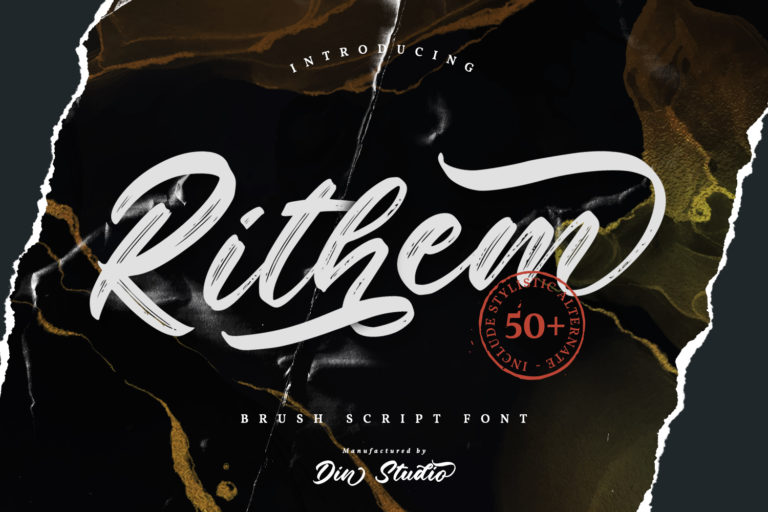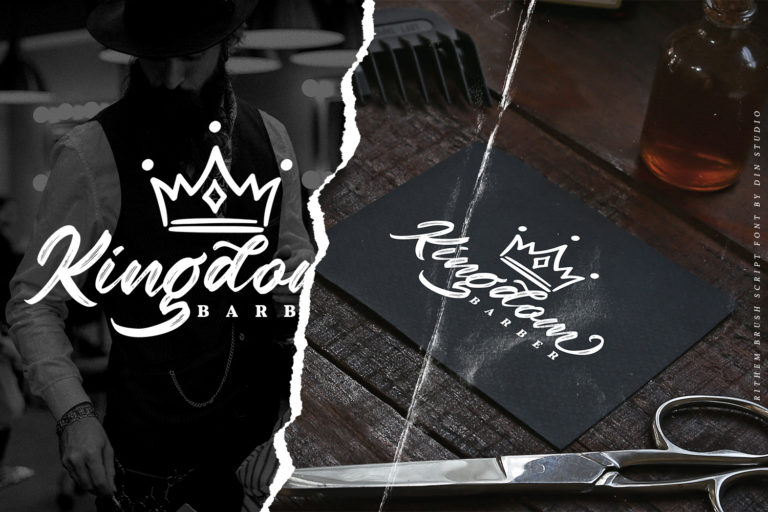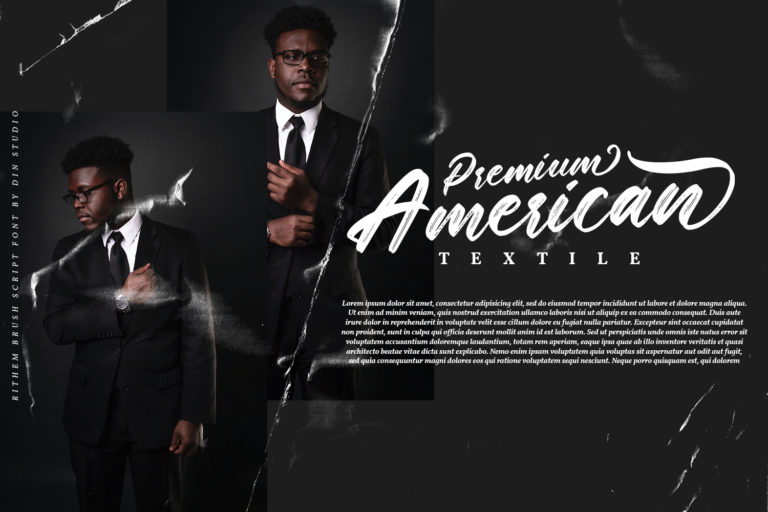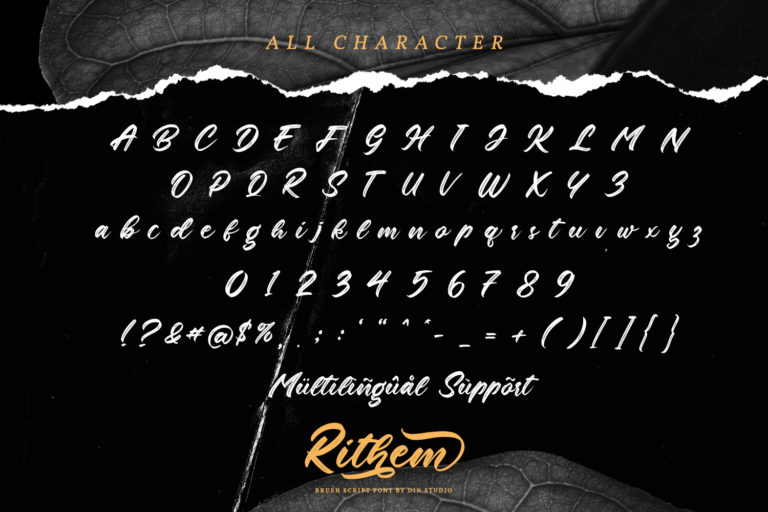
Rithem – Brush Script Font
Rithem
Hello good people! Say hello to Rithem – A Classy Brush Font. The brush combined with calligraphy font will make your design project more powerful. Made for any professional project branding. It is the best for logos, branding and quotes. Every letter has a unique and beautiful touch. See the previews above to get some inspiration on how you can use them. Enjoy the font!
- Multilingual Support
- Numerals and Punctuation